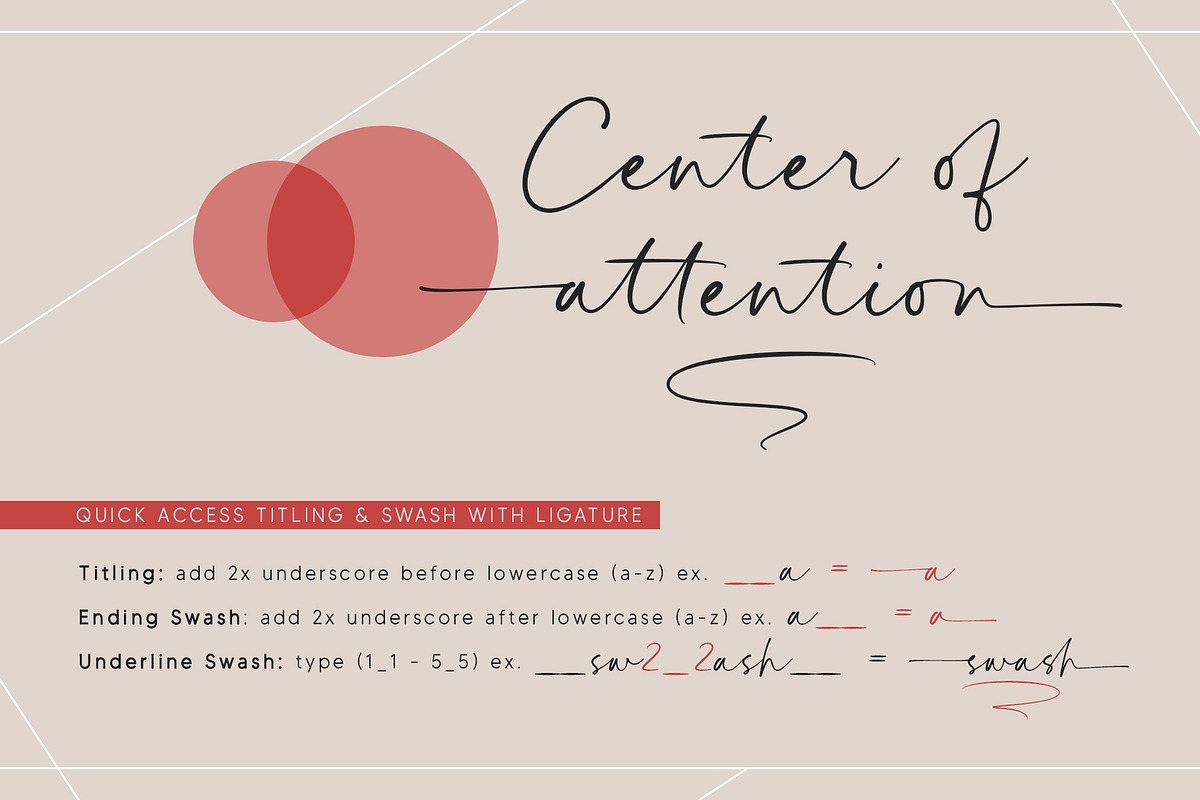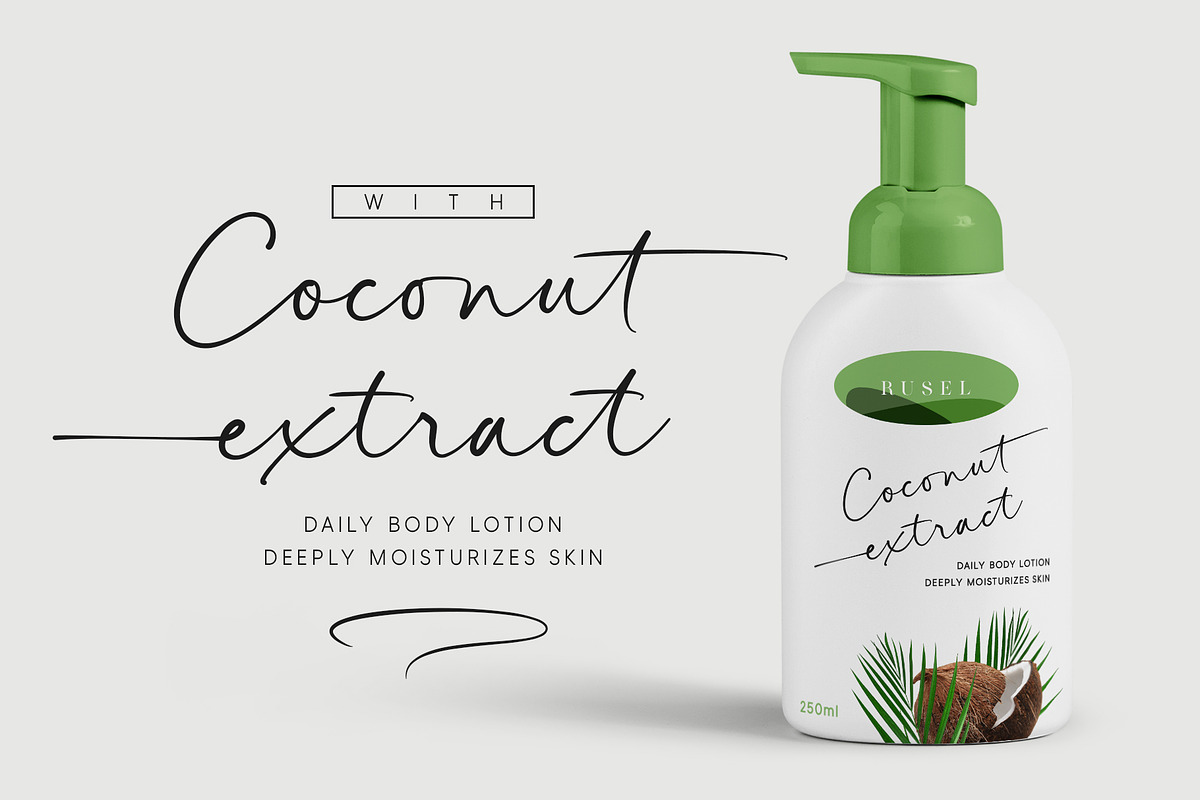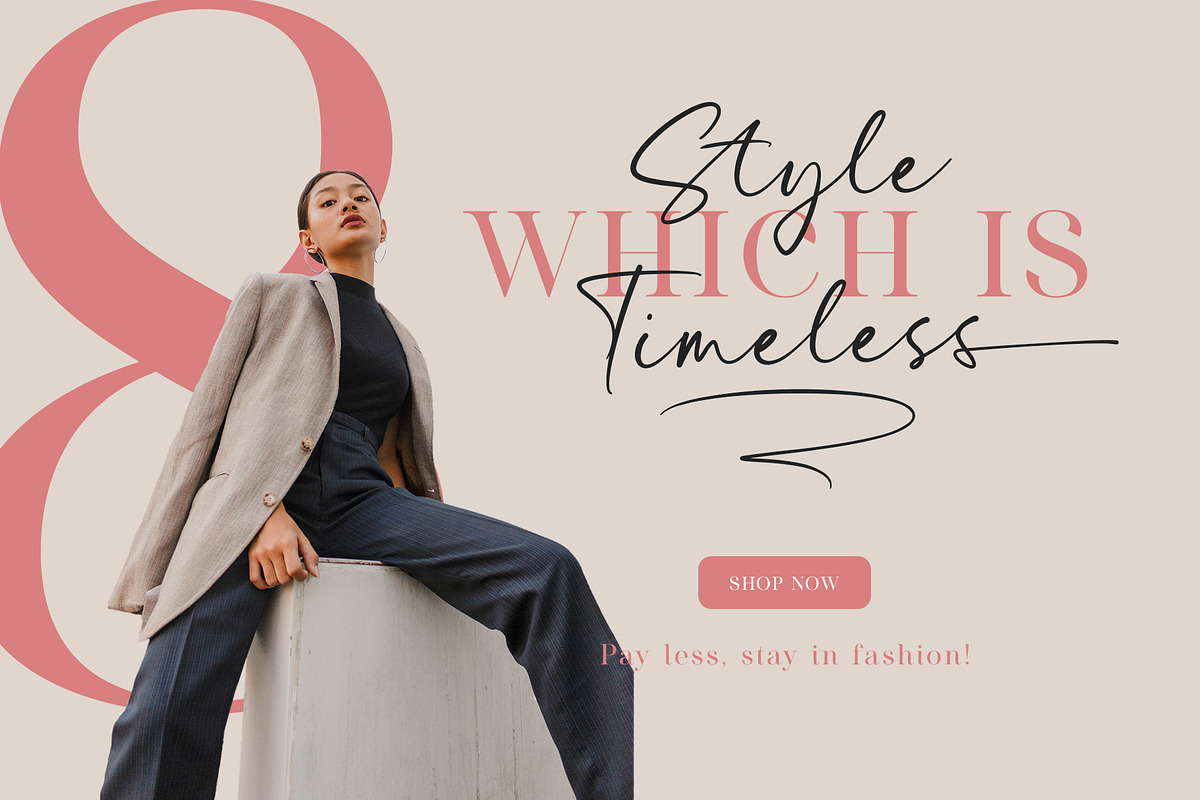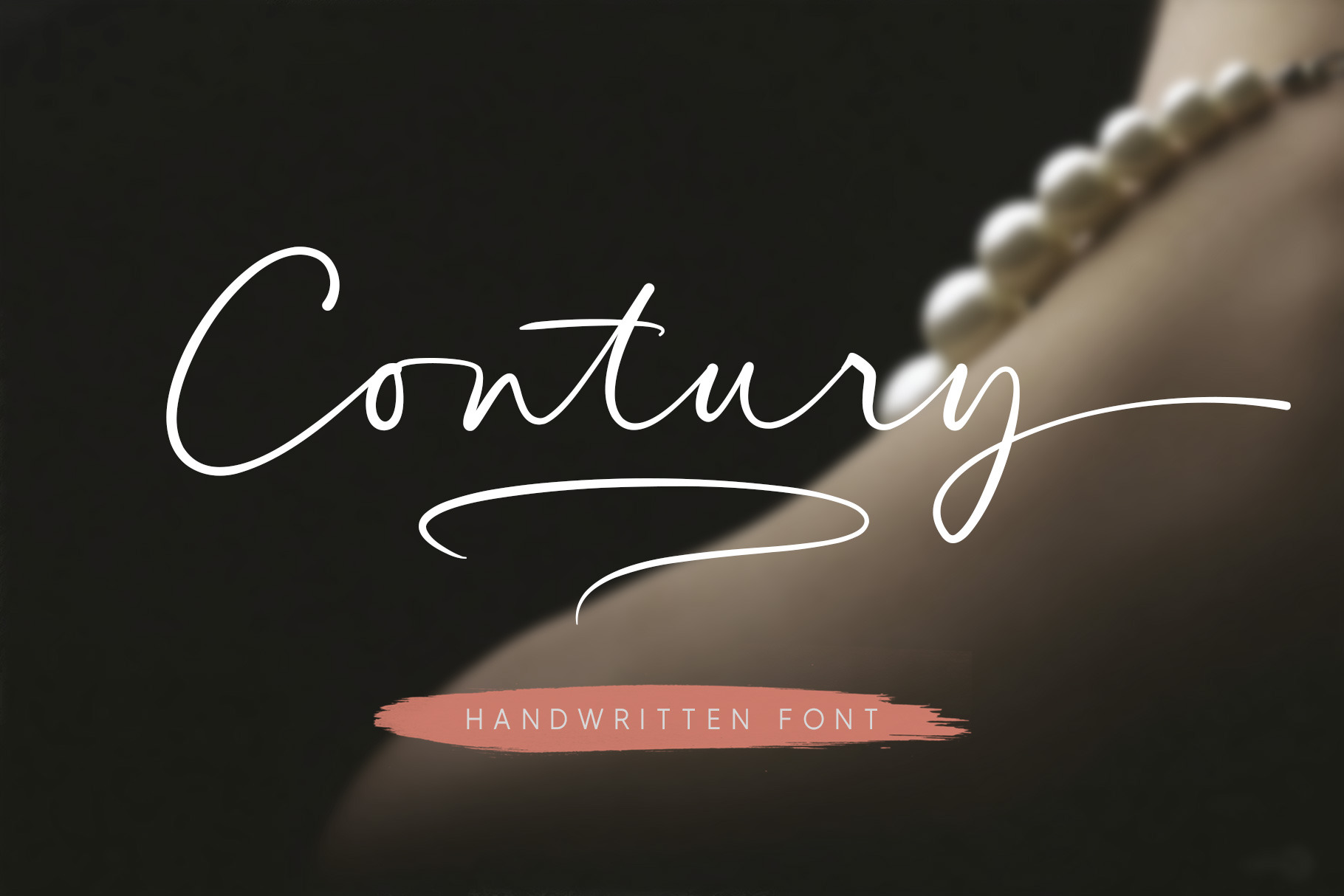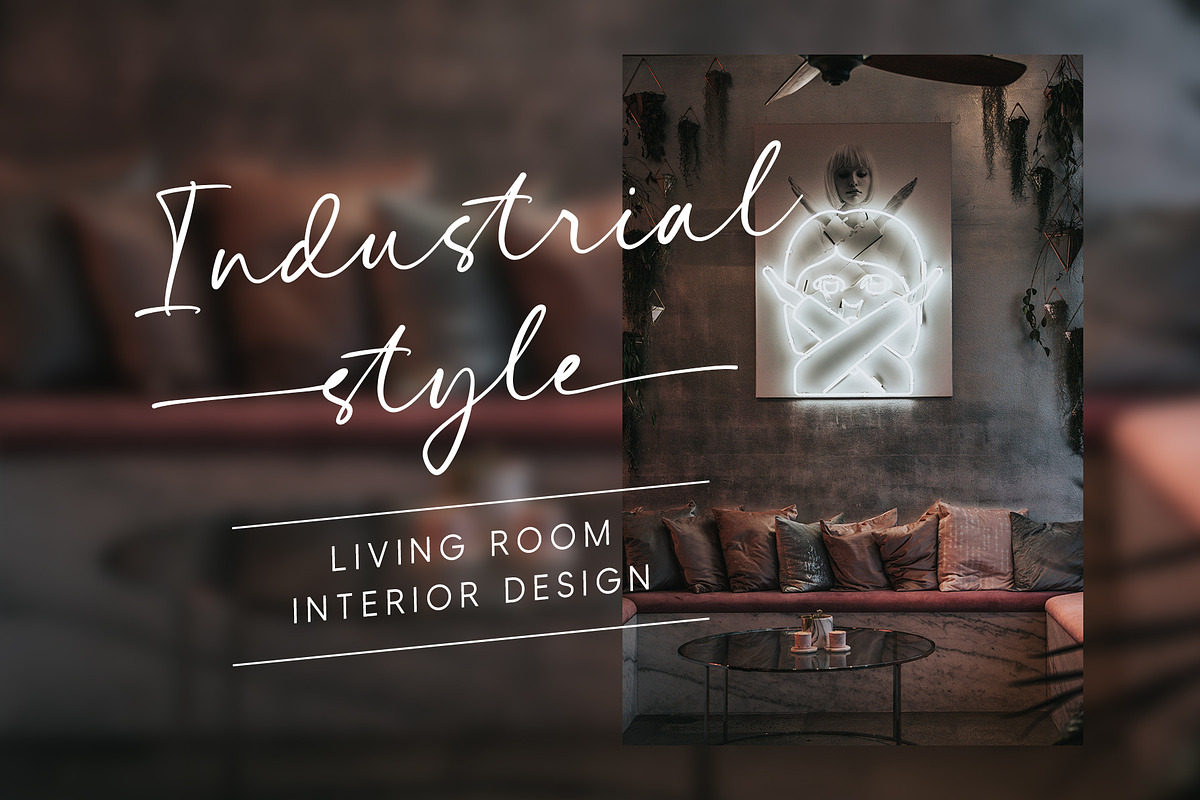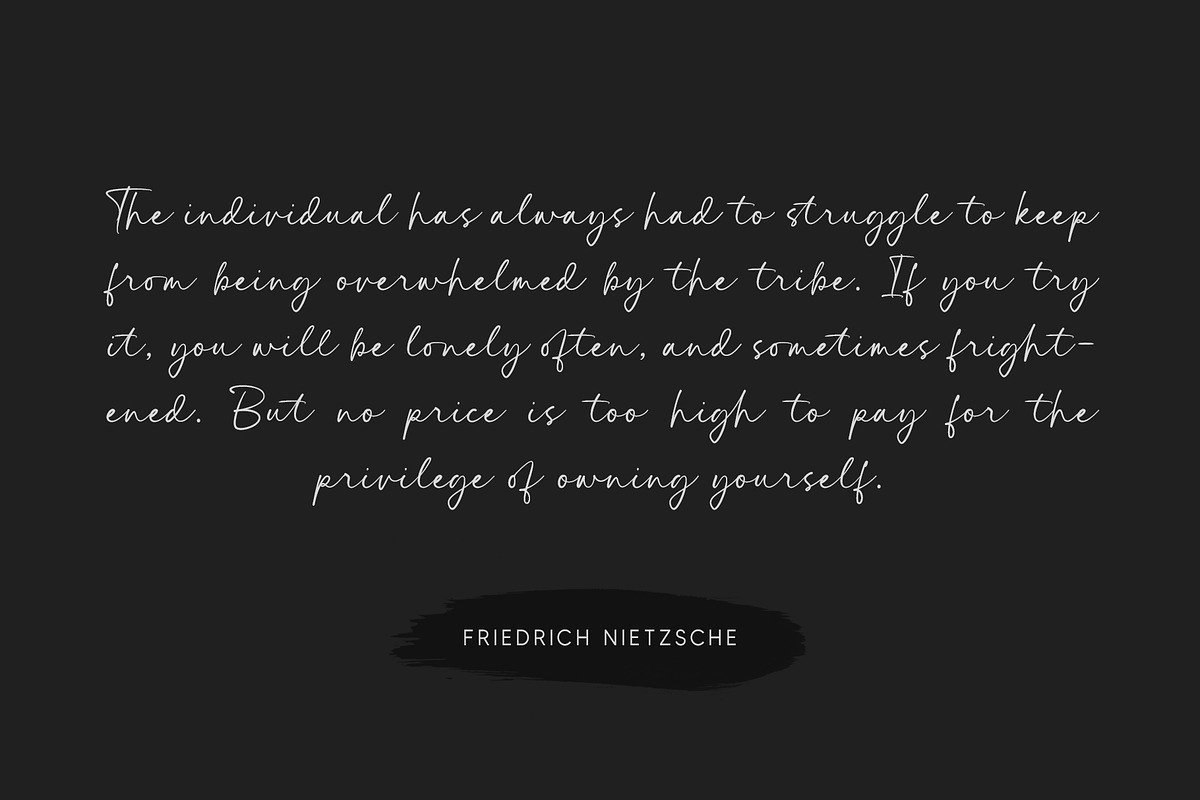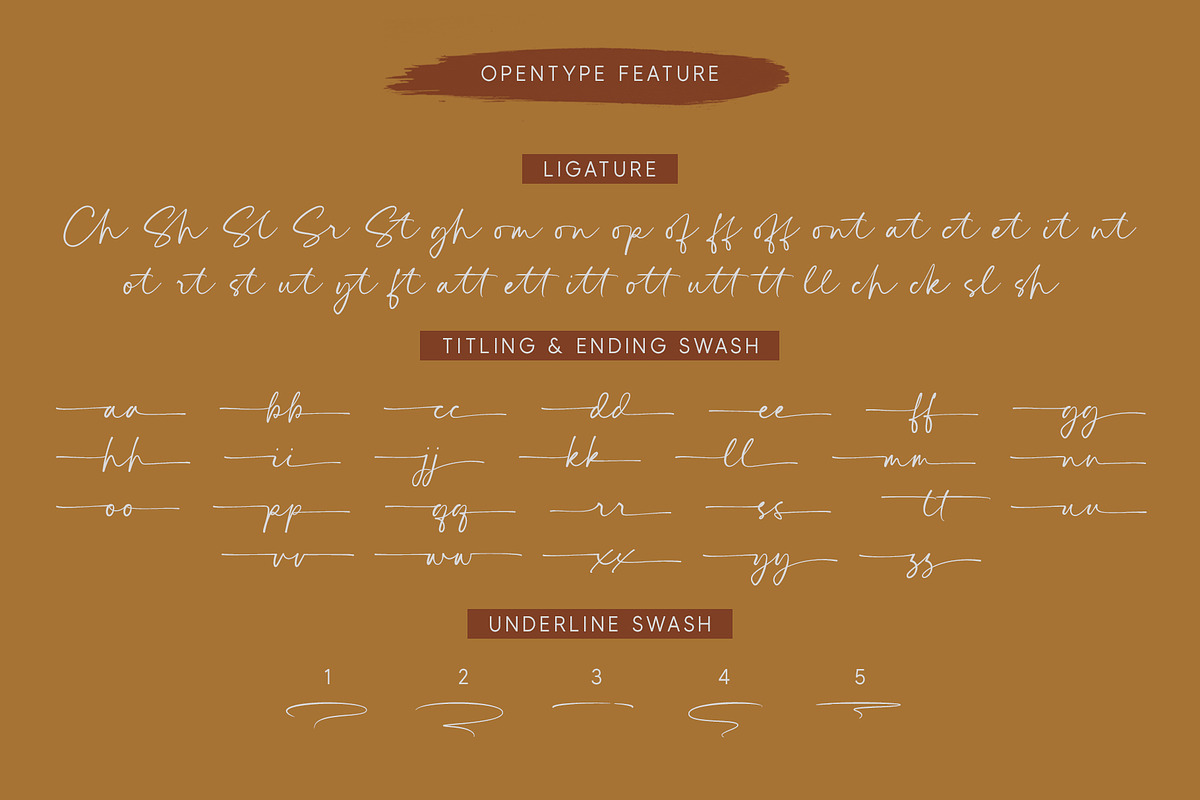
Contury | Handwritten Font
Contury is an elegant handwritten font with a unique feel and a stunning impact. It will add a luxury spark to any design project that you wish to create. Is perfect for many different project such as logos & branding, invitation, wedding designs, advertisements, product packaging, product designs, label and much more!
- Titling
- Titling: Add 2x underscore before lowercase a-z. Ex: __a
- Ending: Add 2x underscore after lowercase a-z. Ex: a__
- Underline Swash: Add number (1-5) + underscore + number (1-5). Ex: 1_1, 2_2, 3_3, 4_4, 5_5